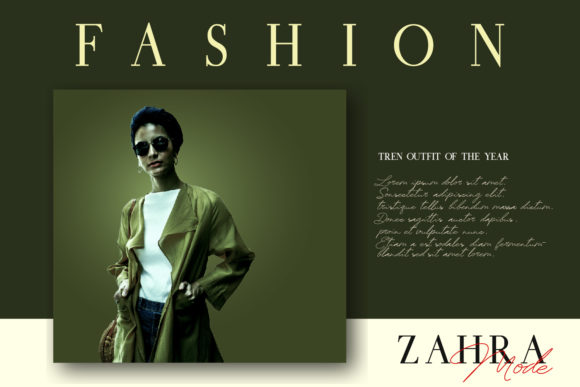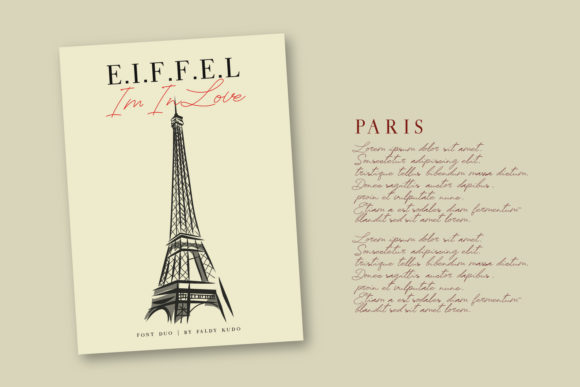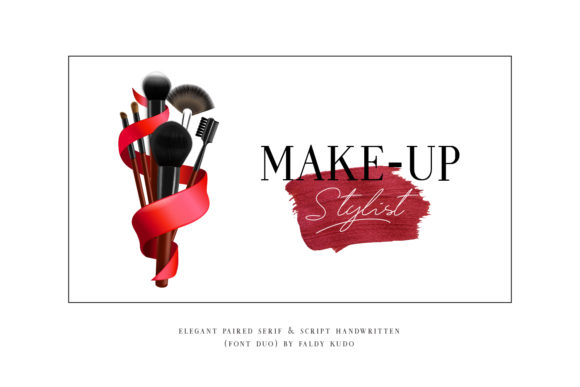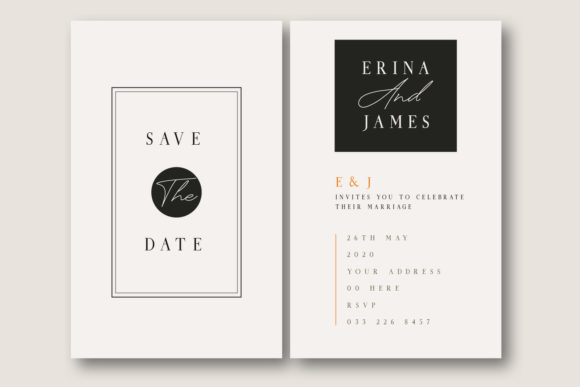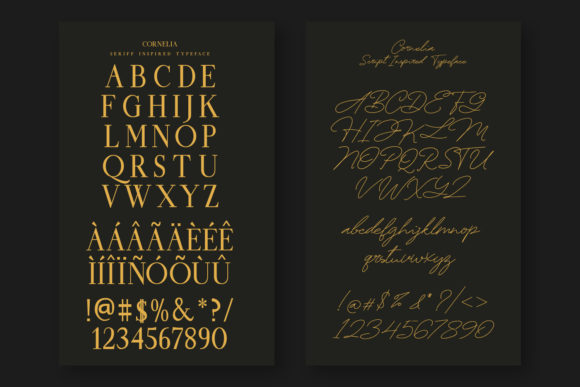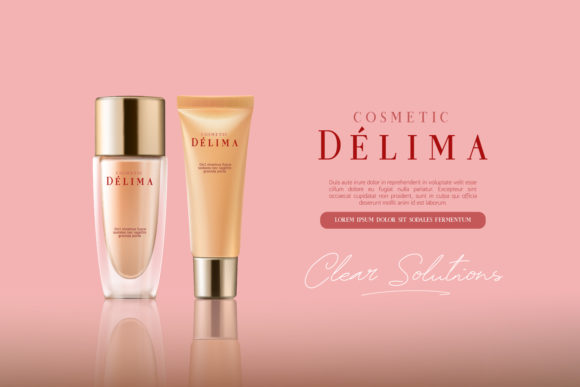
Cornelia Font Duo: Elevate Your Designs with Elegance and Sophistication
In the world of typography, a well-crafted font duo can make all the difference in elevating your designs from ordinary to extraordinary. Introducing the Cornelia Font Duo, a stunning pair of luxury script and serif fonts that are designed to contrast and complement each other with elegant beauty and contemporary style. Whether you’re a designer, crafty DIY enthusiast, or social media influencer, this versatile font duo is sure to become a valuable addition to your creative arsenal.
Unleash Your Creativity with Cornelia Font Duo
The Cornelia Font Duo consists of two distinct typefaces: a beautiful script font and a classic serif font. The script font boasts flowing curves and elegant lines, perfect for creating eye-catching headlines, titles, and decorative text. Meanwhile, the serif font offers a clean and crisp aesthetic, ideal for body text, descriptions, and other supporting content. Together, these fonts form a harmonious pair that can add a touch of sophistication and glamour to any design project.
So, what can you create with the Cornelia Font Duo? The possibilities are endless! Here are a few ideas to get you started:
- Wedding Invitations: Make your wedding stationery truly unforgettable with the Cornelia Font Duo. The script font is perfect for elegant wedding invitations, while the serif font can be used for the details and reception information.
- Stationary Art: Add a touch of luxury to your business cards, letterheads, and other stationary with this beautiful font duo.
- Social Media Posts: Create eye-catching social media posts that stand out from the crowd. Use the script font for attention-grabbing headlines and the serif font for engaging descriptions.
- Greeting Cards: Design beautiful greeting cards for special occasions like birthdays, anniversaries, and holidays.
Key Features of Cornelia Font Duo
Here are some key features that make the Cornelia Font Duo a standout:
- Luxury Script Font: Elegant and flowing curves perfect for headlines and decorative text.
- Classic Serif Font: Clean and crisp aesthetic ideal for body text and supporting content.
- Contemporary Style: A modern take on traditional typography, suitable for a wide range of design projects.
- Elegant Beauty: Add a touch of sophistication and glamour to your designs with this stunning font duo.
Why Choose Cornelia Font Duo?
In a crowded marketplace, it’s essential to have a unique and recognizable brand identity. The Cornelia Font Duo can help you achieve this by:
- Elevating Your Brand: Add a touch of luxury and sophistication to your brand with this elegant font duo.
- Standing Out from the Crowd: Create eye-catching designs that grab attention and leave a lasting impression.
- Enhancing Your Designs: Add a level of professionalism and polish to your designs with this high-quality font duo.
In conclusion, the Cornelia Font Duo is an exceptional pair of luxury script and serif fonts that can elevate your designs to new heights. With its elegant beauty, contemporary style, and versatility, this font duo is perfect for designers, crafty DIY enthusiasts, and social media influencers looking to add a touch of sophistication and glamour to their creations. So why wait? Get creative with the Cornelia Font Duo today and discover a world of limitless design possibilities!